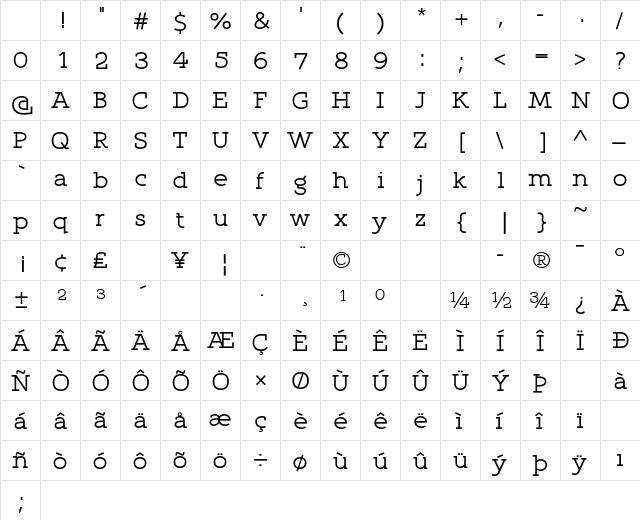
Qlarendon Regular Free Font
Qlarendon Regular
Designer: Joanne Taylor
Design Context for Qlarendon
Qlarendon is a composed and adaptable typeface that performs quietly and consistently across a wide range of design contexts.